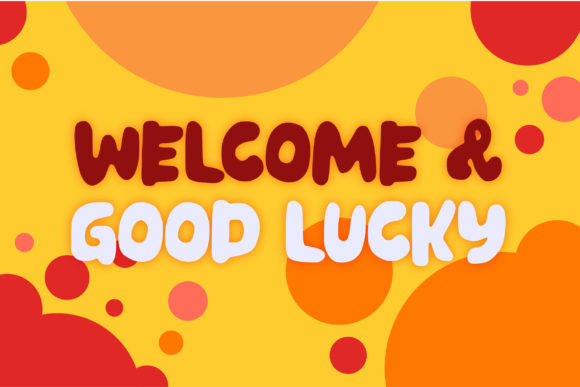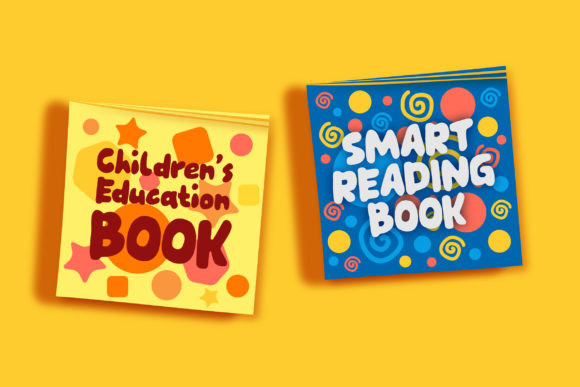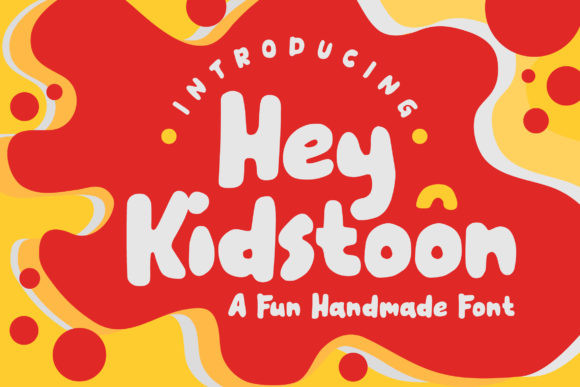
Hey Kidstoon Font
Hey Kidstoon celebrates all things fun! It will add a cheerful and hilarious feel to any kid-friendly or school-themed crafting project.